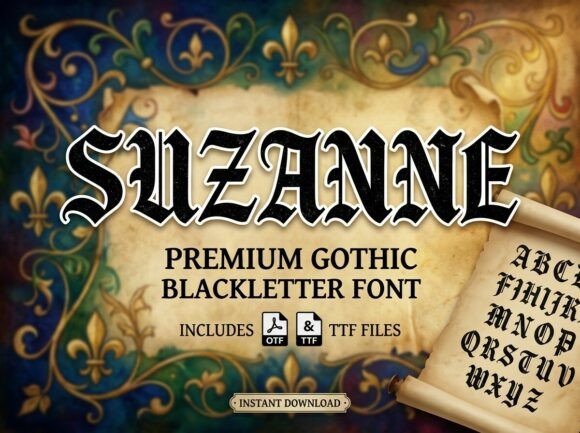
Suzanne: A Typeface That Commands the Room
There are fonts that blend in, and there are fonts that demand to be seen. Suzanne falls firmly in the latter category. It’s a premium font built for moments when your message needs to do more than just communicate—it needs to captivate. As a display font, its primary job is to make a powerful first impression, and it accomplishes this with a unique blend of artistic flair and structured elegance. This isn't a workhorse for body text; it's the headline act, the logo centerpiece, the decorative initial that sets the entire tone for your brand identity.
Understanding Suzanne's Visual Personality
Suzanne is an all-caps typeface, meaning every letter is designed as a standalone artwork. This characteristic makes it exceptionally consistent and bold. The letterforms feature distinctive artistic elements—perhaps unexpected curves, sharp terminals, or subtle detailing—that give it a strong visual personality. You'll notice it has a polished, professional finish despite its decorative nature. It avoids feeling overly whimsical or childish, striking a balance that suits modern typography trends. The overall appeal is one of confident creativity, ideal for projects that want to project authority and originality without sacrificing clarity.
Because it's a display typeface, Suzanne is optimized for impact at larger sizes. It thrives in environments where every character can be appreciated. Think of it as the digital equivalent of a perfectly tailored suit for your words—it’s not for everyday lounging, but for the moments that matter. Its design ensures that even in a single word or a short phrase, it creates a strong visual hierarchy, immediately drawing the viewer's eye to the most important information.
Where Suzanne Shines: Practical Applications
The versatility of a good creative font like Suzanne is measured by its range. It’s not a one-trick pony. Its strength lies in its ability to adapt to various contexts while maintaining its core character. Here’s where it truly excels:
Integrating Suzanne into Your Design Workflow
Adopting a new design asset like Suzanne requires a bit of strategy. First, always test it within the context of your project. Create mockups for your logo, a sample social media post, or a product label. See how it interacts with your color palette and imagery. A font pairing is crucial here. Since Suzanne is a bold serif or sans-serif display face (depending on its specific style), it often pairs beautifully with a clean, neutral sans-serif font for supporting text. A simple serif font can also work for a more classic, layered feel. Avoid pairing it with another highly decorative script font or handwritten font, as this can create visual chaos.
Remember, Suzanne is an all-caps typeface. This is a feature, not a limitation, but it informs its use. It’s perfect for headlines, logos, and initials where each letter needs to carry weight. For longer blocks of text, even at a headline size, readability can become a concern. Always prioritize the user’s ability to quickly understand the message. Test for readability at various sizes and on different screens or print materials.